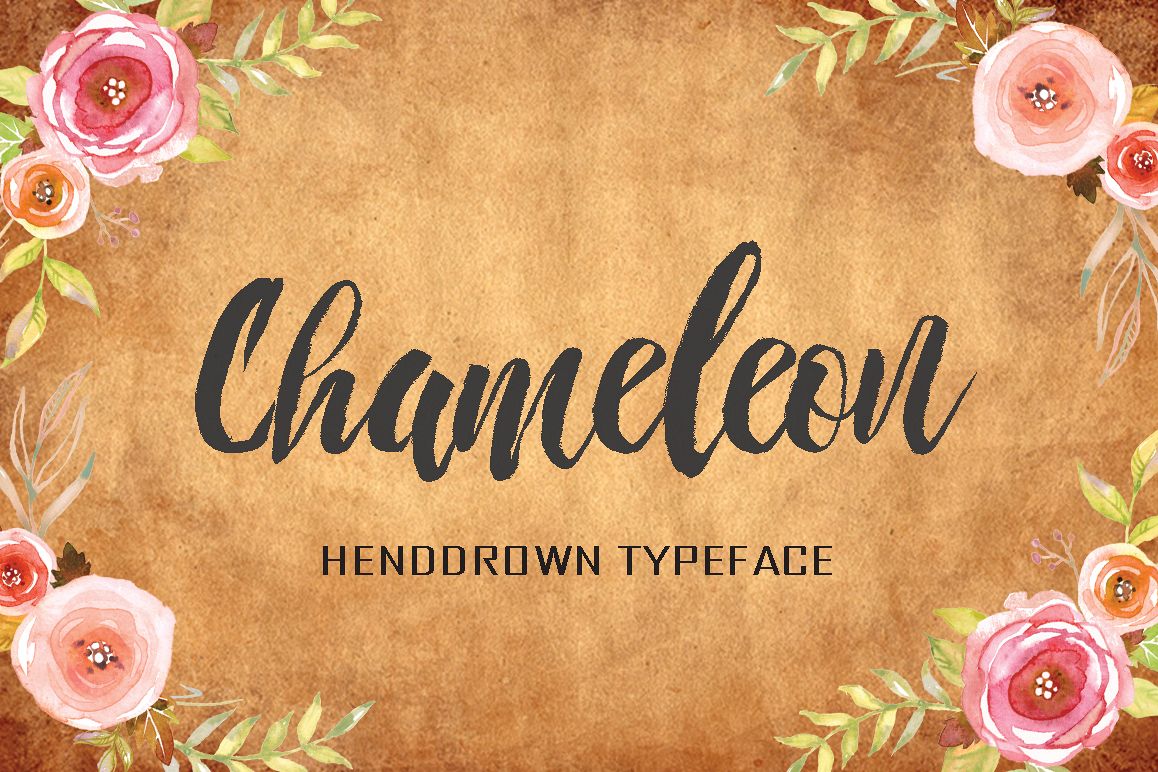
Chameleon
Chameleon .
Chameleon is a font scrip,handdrawn, so, font script that is beautiful and unique, it is a model of modern calligraphy typefaces, in combination with a calligraphy writing style.
Languages supported: Breton, Catalan, Czech, Danish, Estonian,French, German, Hungarian, Icelandic, Italian, Romanian, Scottish Gaelic, Slovak, Latvian, Lithuanian, Norwegian, English, Finnish, Polish, Portuguese, Slovenian, Spanish, Swedish, Turkish, Welsh. Basically, all european languages that are based on latin alphabet